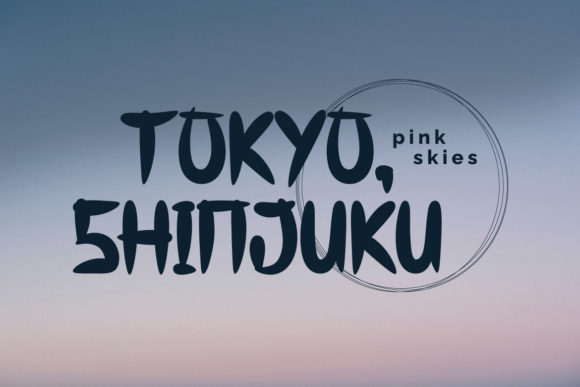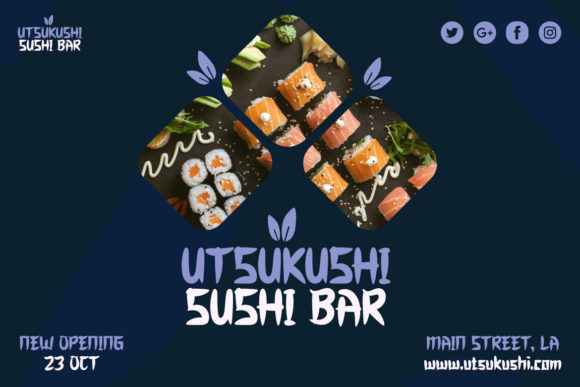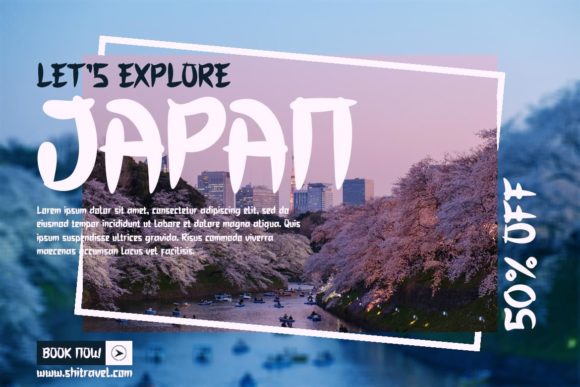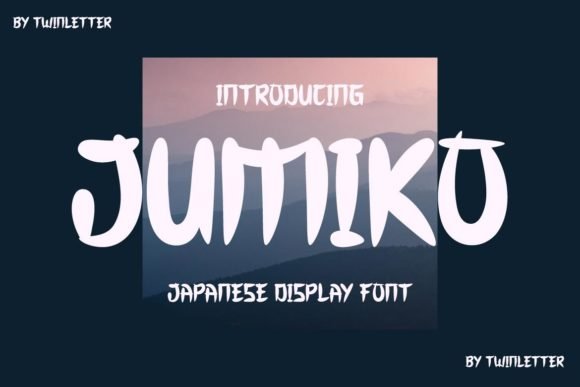
Introduction to Jumiko Font
Jumiko is a display font with a Japanese motif and a dramatic touch, resulting in a stunning and futuristic mix of words.
You can simply use this font to make your project unique and memorable, making it stand out and easy to remember Logotypes, food banners, branding, brochure, posters, movie titles, book titles, quotes – they may all benefit from this font.